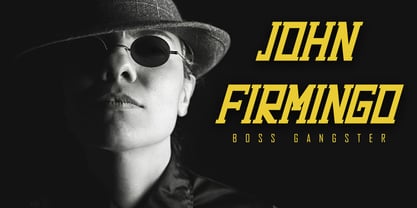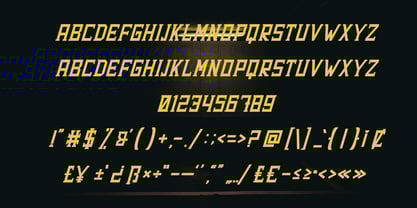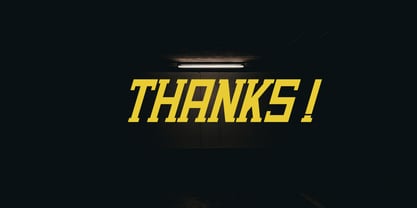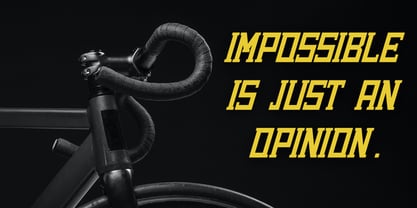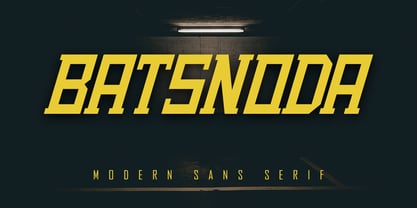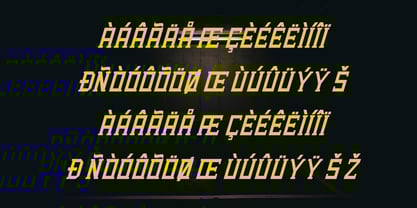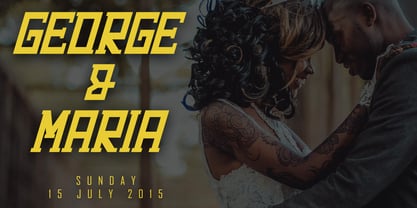
Batsnoda
The Batsnoda Font Family was designed by Irfan Mahmudin and published by Skiiller Studio. Batsnoda contains 1 styles. More about this family
Batsnoda is a bold modern sans serif font with strong geometric shapes and sharp angles. Designed for headlines, logos, posters, branding, esports, and industrial-themed designs, it delivers a powerful and futuristic impression. Its clean structure and high impact letterforms make it ideal for projects that demand strength, clarity, and contemporary style.